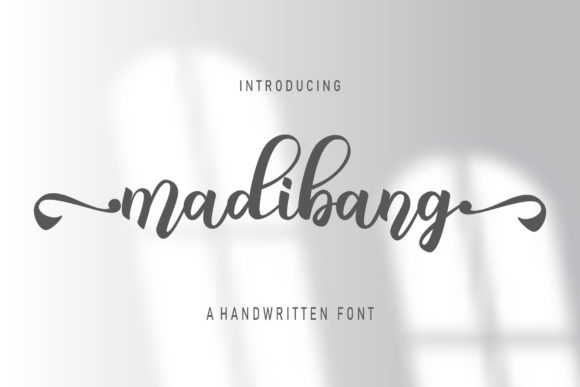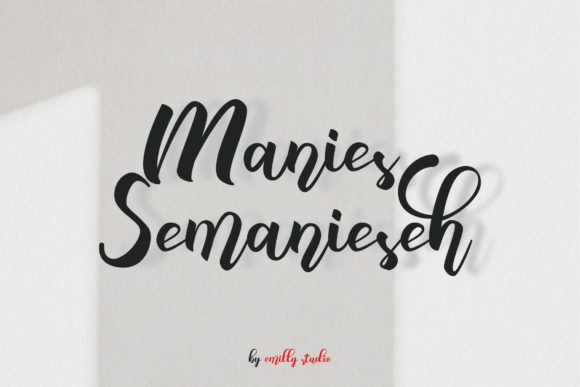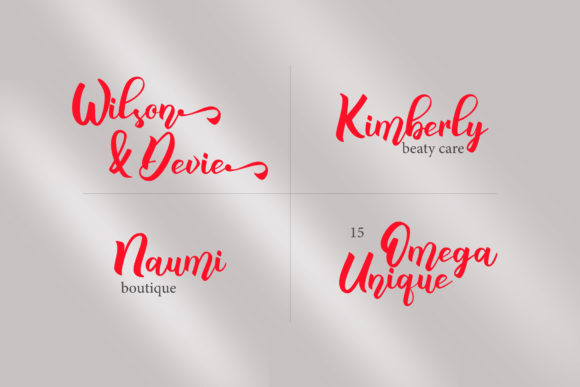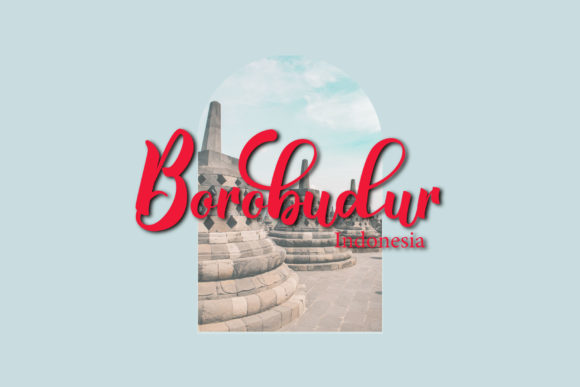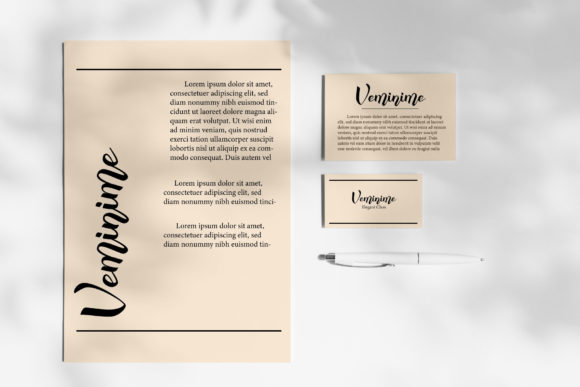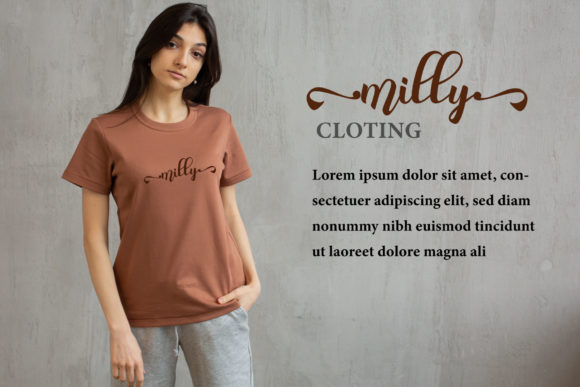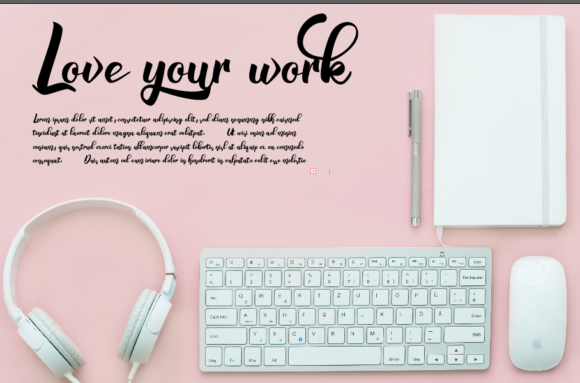
Madibang Font
About Madibang Font
Madibang is a stylish and delicate script font. It looks stunning on wedding invitations, thank you cards, quotes, greeting cards, logos, business cards and every other design which needs a handwritten touch.